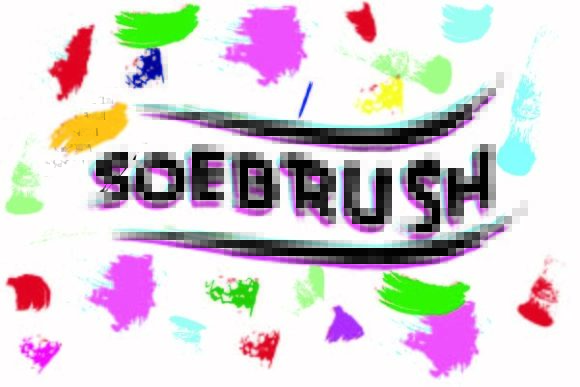
Introducing Soebrush Font: The Playful and Whimsical Display Font That Will Add a Touch of Fun to Your Designs!
Soebrush Font, a creation of the talented kataenda, is an absolute delight for designers seeking a fun and friendly display font. With its cheerful and playful personality, Soebrush is the perfect choice for projects that demand a touch of joy and lightheartedness.
Step into a world of whimsical charm as you explore the endless possibilities that Soebrush Font offers. Its bouncy and expressive characters add a playful twist to any project, be it cartoon-related designs, children's games, captivating quotes, bold titles, unique brand names, eye-catching book covers, vibrant posters, or any creation that craves a spark of happiness.
With Soebrush Font, you'll find yourself immersed in a world of endless creative possibilities. Let your imagination soar as you craft captivating designs that radiate joy and charm. Whether you're a seasoned designer seeking to add a touch of playfulness to your work or a novice just starting your creative journey, Soebrush Font is your perfect companion.
Soebrush Font is not just a font; it's an invitation to let your creativity dance and your designs shine. Its versatility knows no bounds, allowing you to effortlessly create designs that capture attention and leave a lasting impression. Let Soebrush Font be your secret weapon for creating designs that resonate with your audience and make them smile.
In a world where uniformity often prevails, Soebrush Font stands out as a beacon of individuality. Its unique and captivating style sets your designs apart, ensuring they stand out from the crowd. Make a statement with Soebrush Font, and let your designs do the talking.